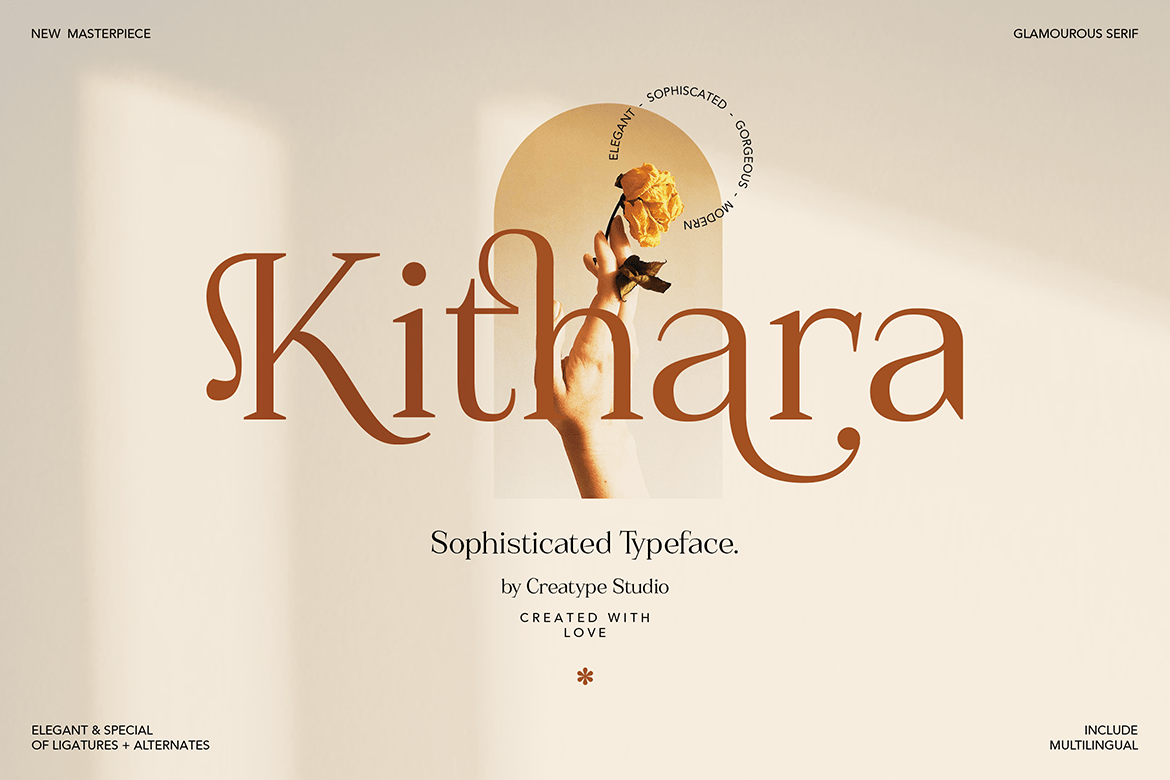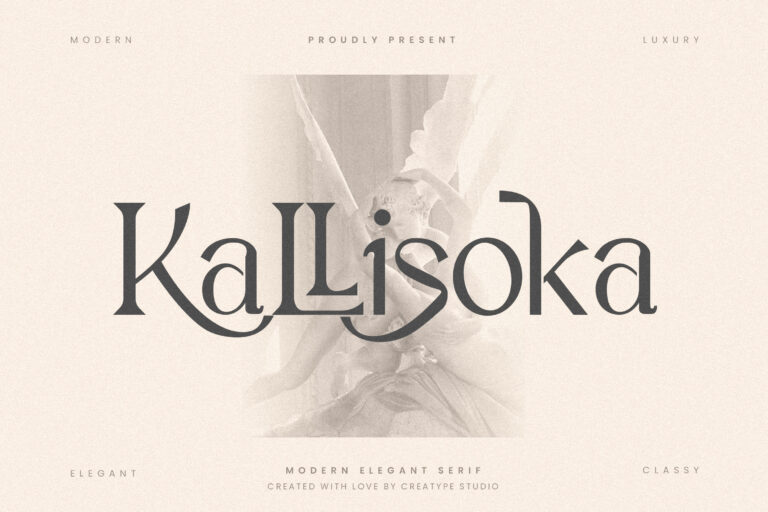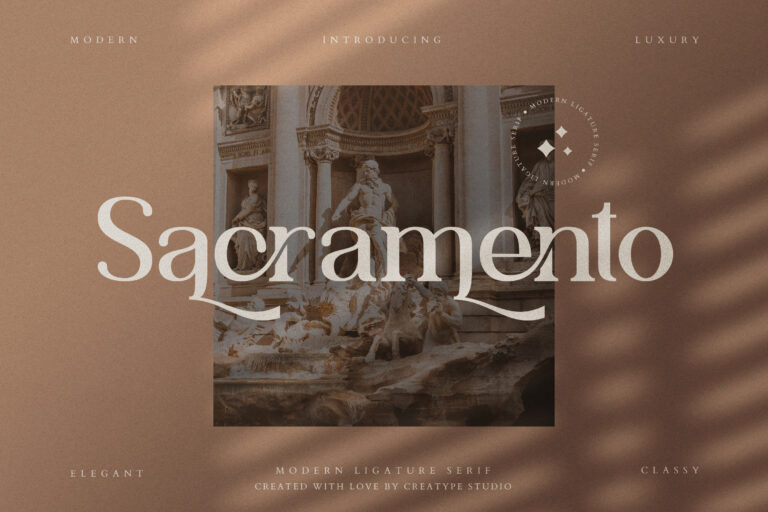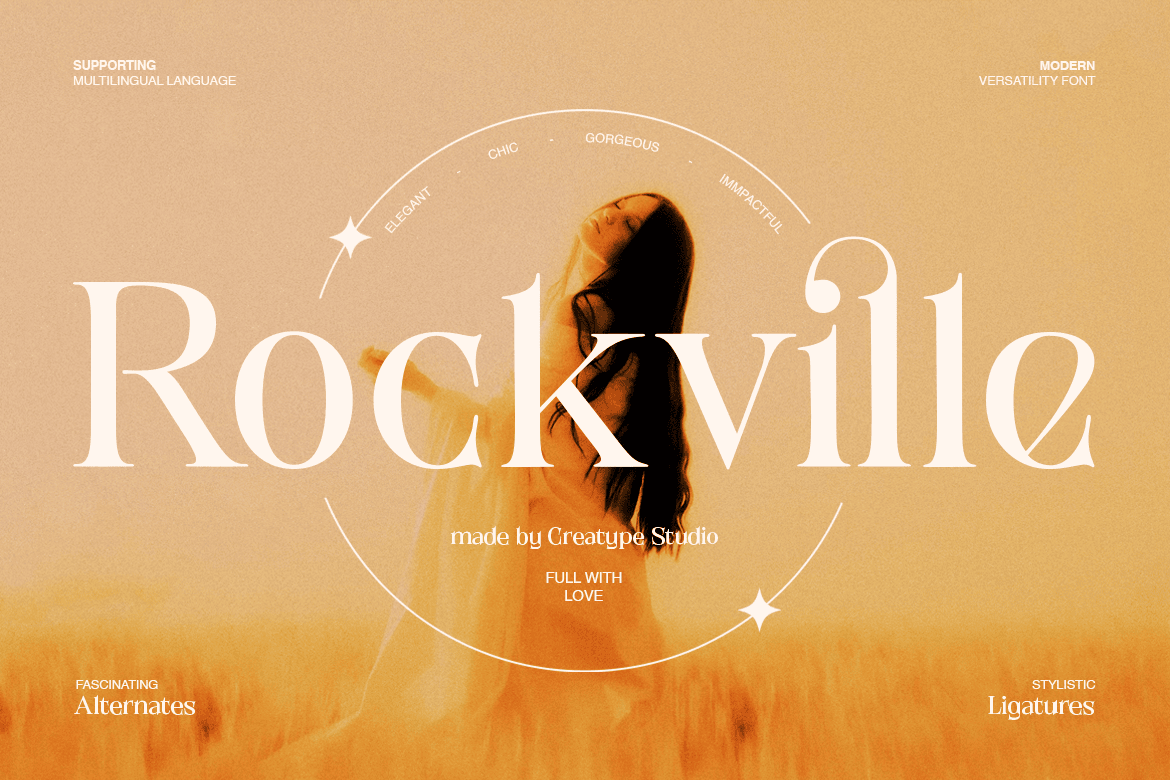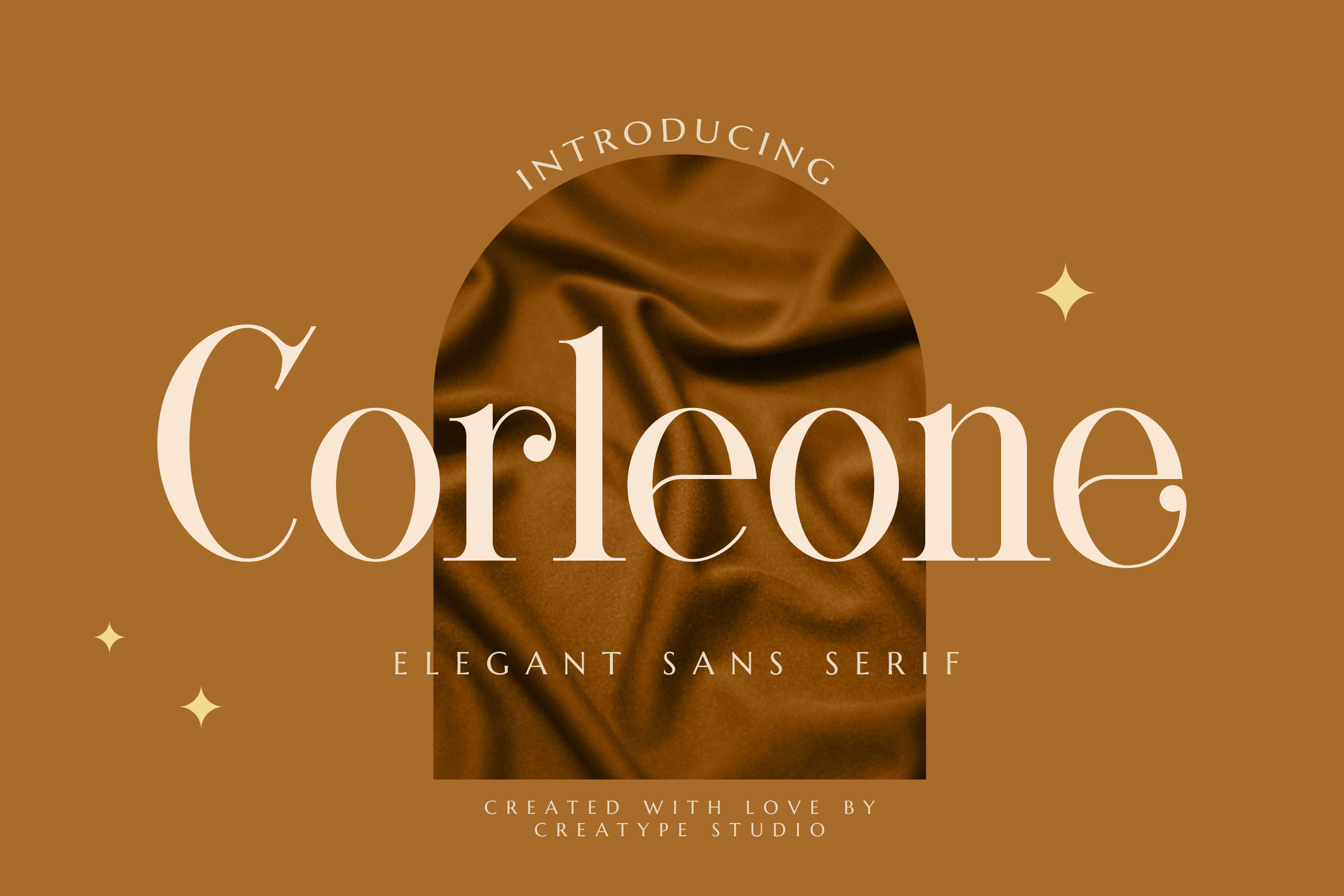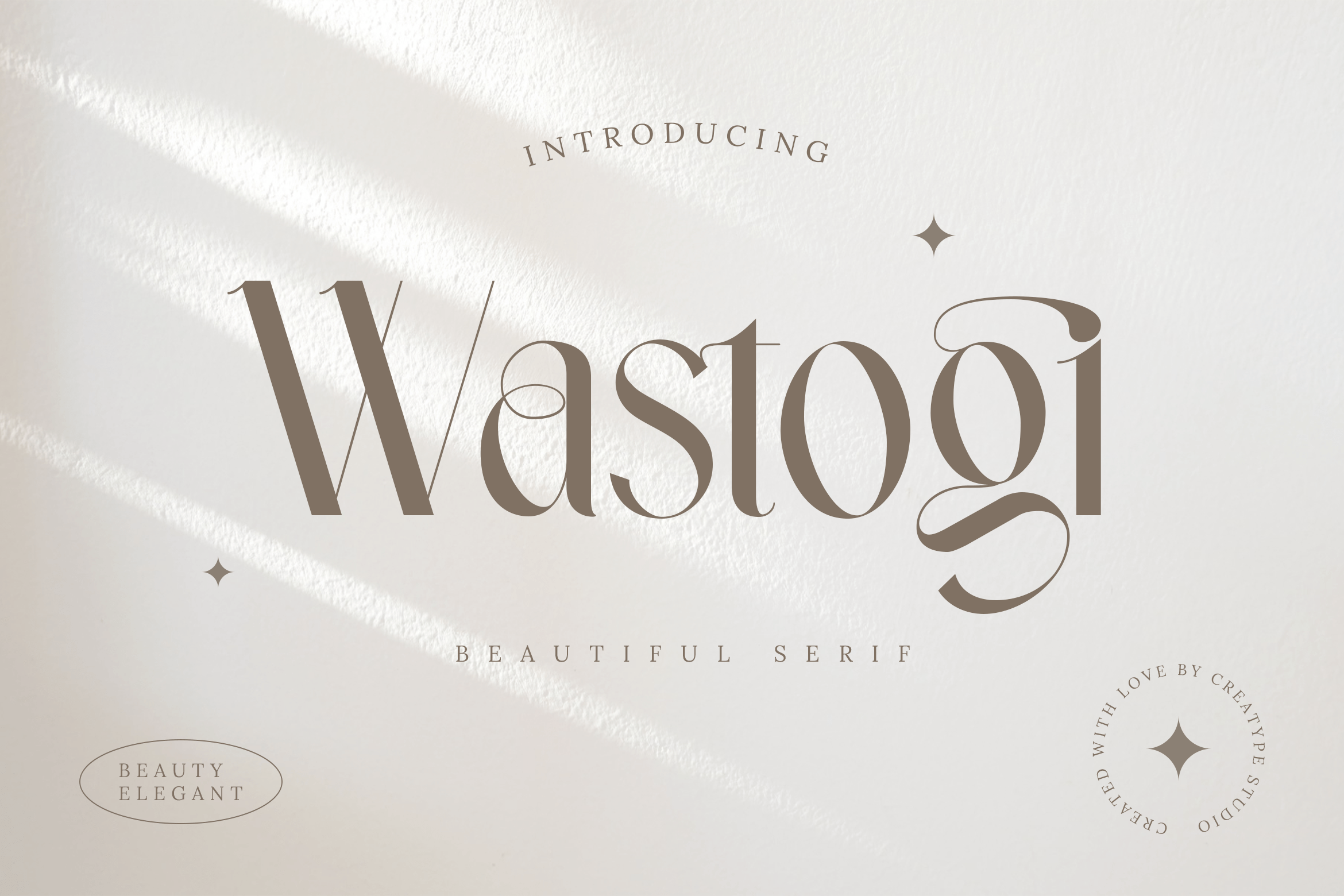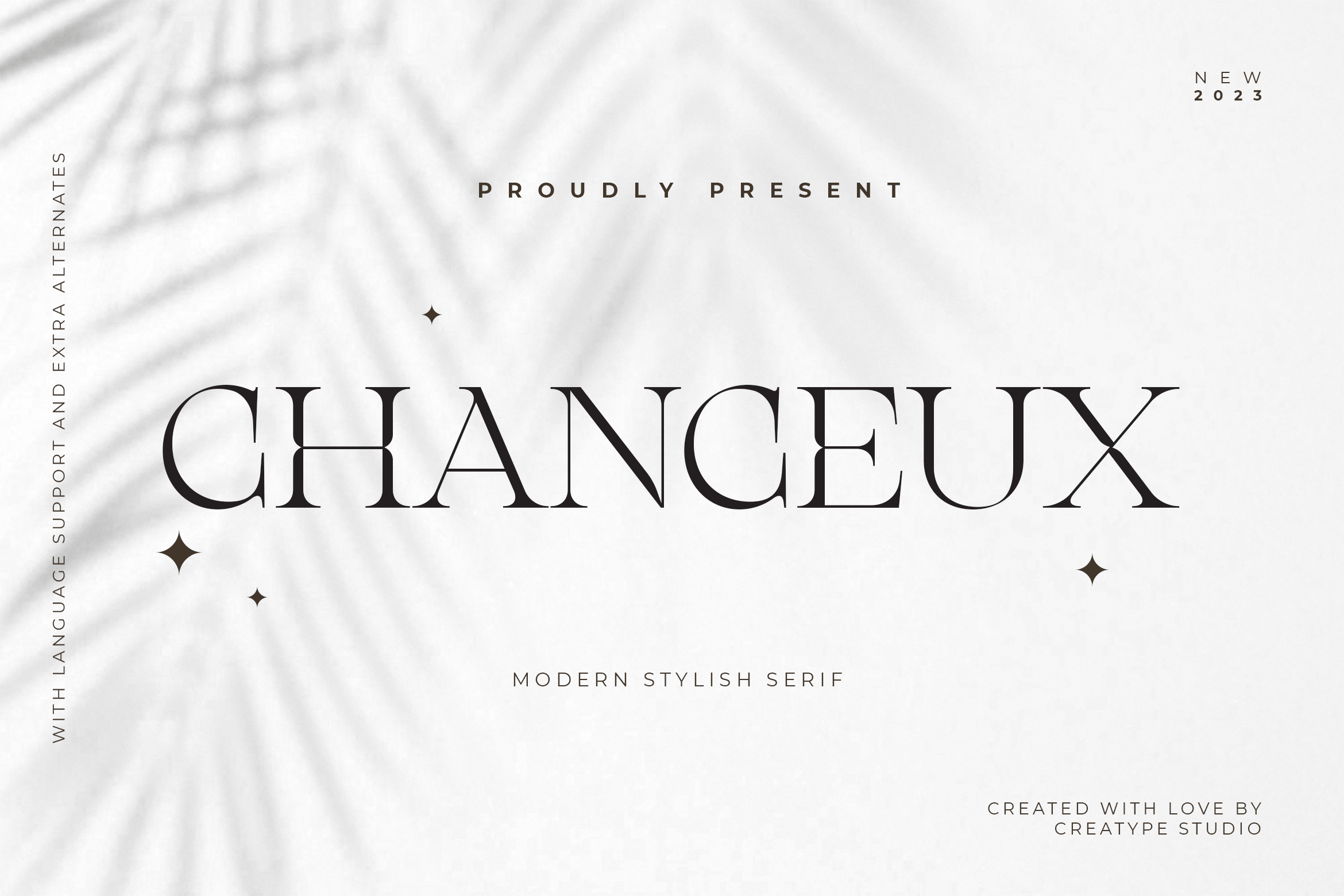
17 Modern Serif Fonts for Elegant and Stylish Designs
modern serif font for beauty product branding
In design, the right modern serif font can instantly elevate your project with elegance and style. Known for their clean lines and refined details, these fonts work beautifully for branding, editorial layouts, packaging, and digital designs.
In this article, you’ll find 17 serif font options, perfect for building a luxury brand, launching a beauty product, or creating standout visuals. The best spot to begin exploring is right here.
Key Takeaways:
• Modern serif fonts combine elegance and versatility, making them ideal for branding and creative projects.
• Each featured font offers unique characteristics suited for different industries, from beauty to food.
Beautiful Modern Serif Font Choices
1. Kithara
This modern elegant serif font helps your design look effortlessly polished and classy, thanks to its elegant ligatures and smooth curves that bring a fresh vibe.
2. Wastogi
Wastogi is a beautiful modern serif with unique details that create an elegant yet modern look. Looks perfect to apply for invitations or beauty product packaging with a charm.
3. Mangroove
Mangroove strikes the perfect balance between elegant ligatures and minimalistic style. Its subtle handwritten feel makes it a great choice for authentic fashion brands aiming for a modern, personal touch.
4. Chanceux
Chanceux is a modern serif font that adds a refined and elegant touch to your designs. It’s a great fit for men’s fashion branding and other classy projects.
5. Renaisans
To bring a strong personality to your design, this font features distinctive shapes rarely found in others. True to its name, it’s an excellent pick for classical or historical-themed projects that need a timeless and unique feel.
6. Sebastian
Sebastian, a refined and graceful typeface designed to add charm and sophistication to your needs, especially for stylish branding that deserves a timeless touch.
7. Moores
Moores is a great fit for beauty and fashion products. With its modern geometric shapes and soft, feminine style, it stands out as one of the best modern serif font options for elegant and stylish branding.
8. Vegawanty
Add a luxurious feel to your product with this extraordinary typeface! It featured a stylish twist, elegant curves, and classy details perfect for jewelry products.
9. Quickly Sustain
Quickly Sustain comes through with a laid-back feel, tied together by a sleek serif font. It’s perfect for food and drink packaging or casual sneaker branding with a stylish and fresh look.
10. Kallisoka
Kallisoka definitely gives a touch of luxury, making it an excellent choice for natural product branding and beauty packaging. Its sleek form and refined curves exude a high-end feel, while its balanced structure adds sophistication to any layout.
11. Sacramento
Add a touch of elegance to your summer collection or photography brand with Sacramento. This modern serif typeface features graceful curves and sophisticated alternates, making it a perfect choice for refined, seasonal visuals.
12. Wintter
12. Winter
Wintter is a modern serif that pairs classic elegance with a relaxed flow. Its soft curves make it perfect for cozy cafés, artisan bakeries, and lifestyle brands that want to feel warm, stylish, and approachable without trying too hard.
13. Rockville
With sleek details and fun alternates, Rockville is designed to shine. It brings the perfect blend of elegance and creativity. It is also best to pick as an excellent modern serif font for graphic design for a sharp and fresh look.
14. Astragon
Astragon makes it easy to create trendy and eye-catching designs. With its clean lines and refined details, this font adds a modern touch that’s perfect for greeting cards, social media posts, and elegant branding.
15. Graphire
Its contrast between sharp lines and soft curves reflects a sense of sophistication, making it a perfect fit to apply for the branding of perfume brands and handmade clothing labels.
16. Corleone
Every word is given eternal appeal by Corleone’s elegant, charming nature. This classy serif typeface speaks softly yet powerfully, making it an ideal choice for luxury catalogs, premium branding, and editorial layouts.